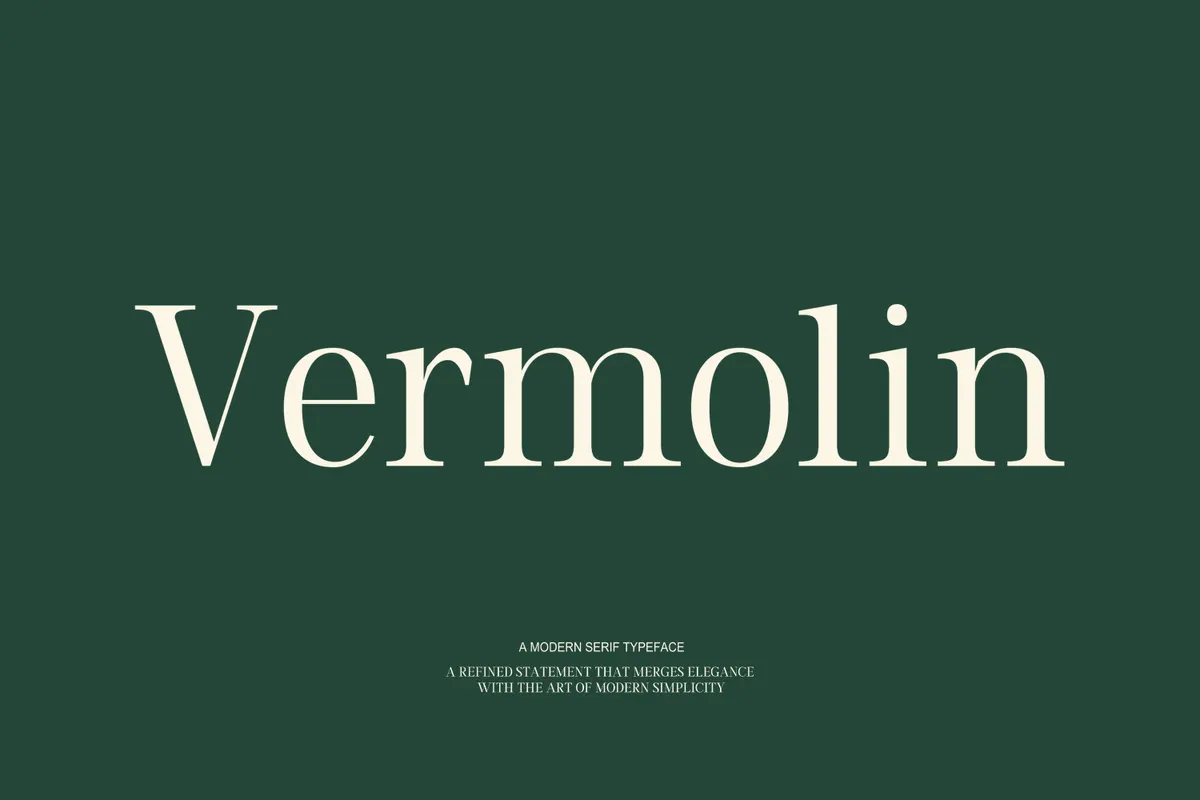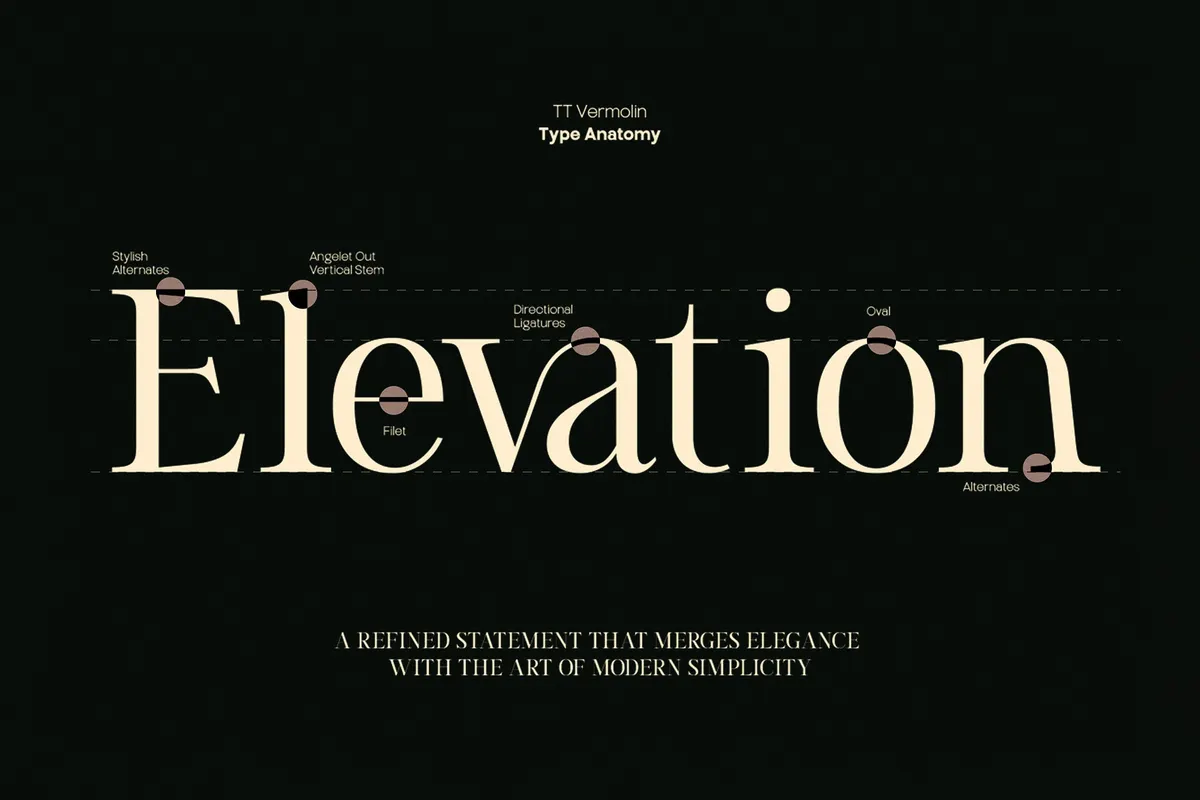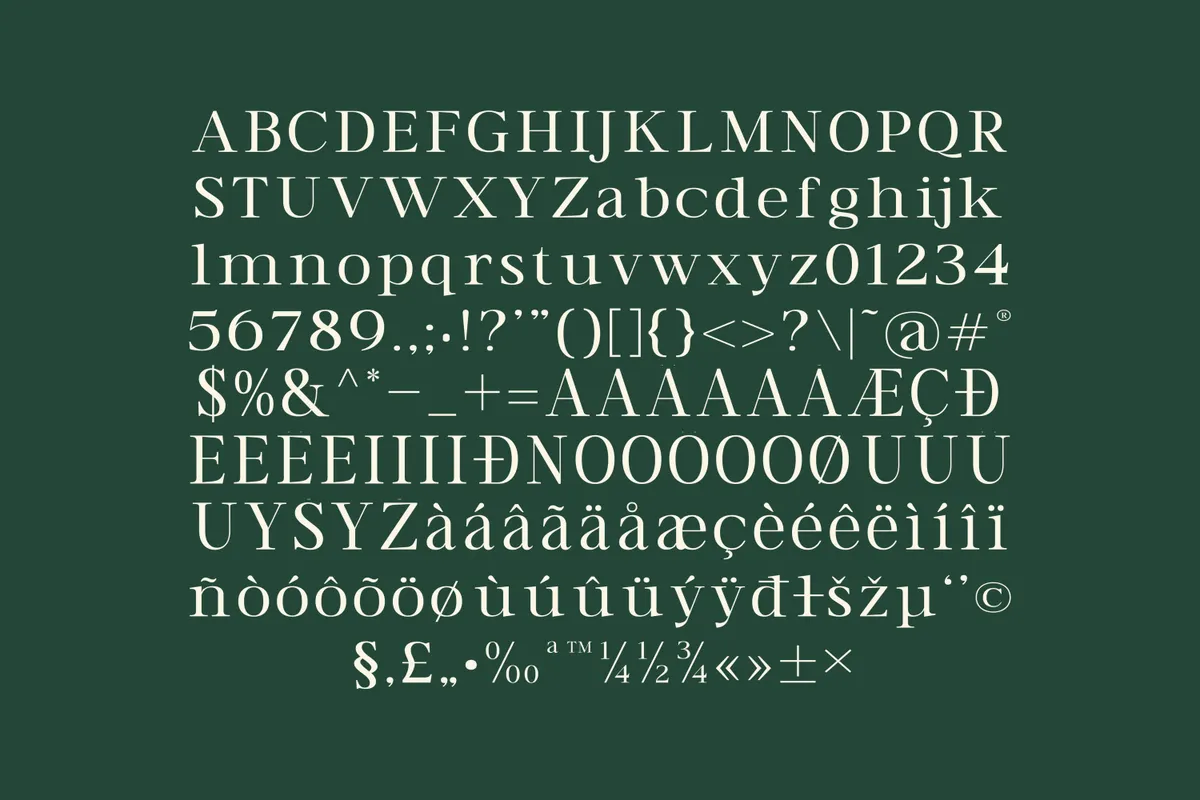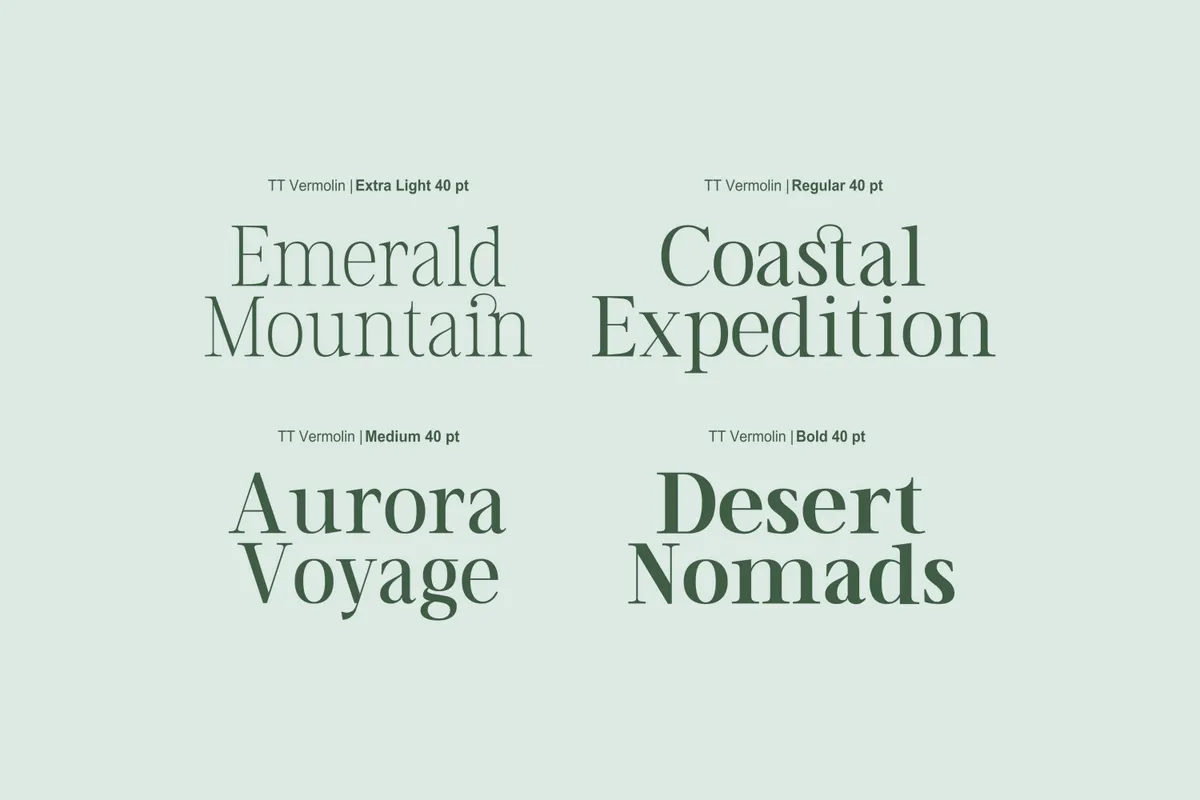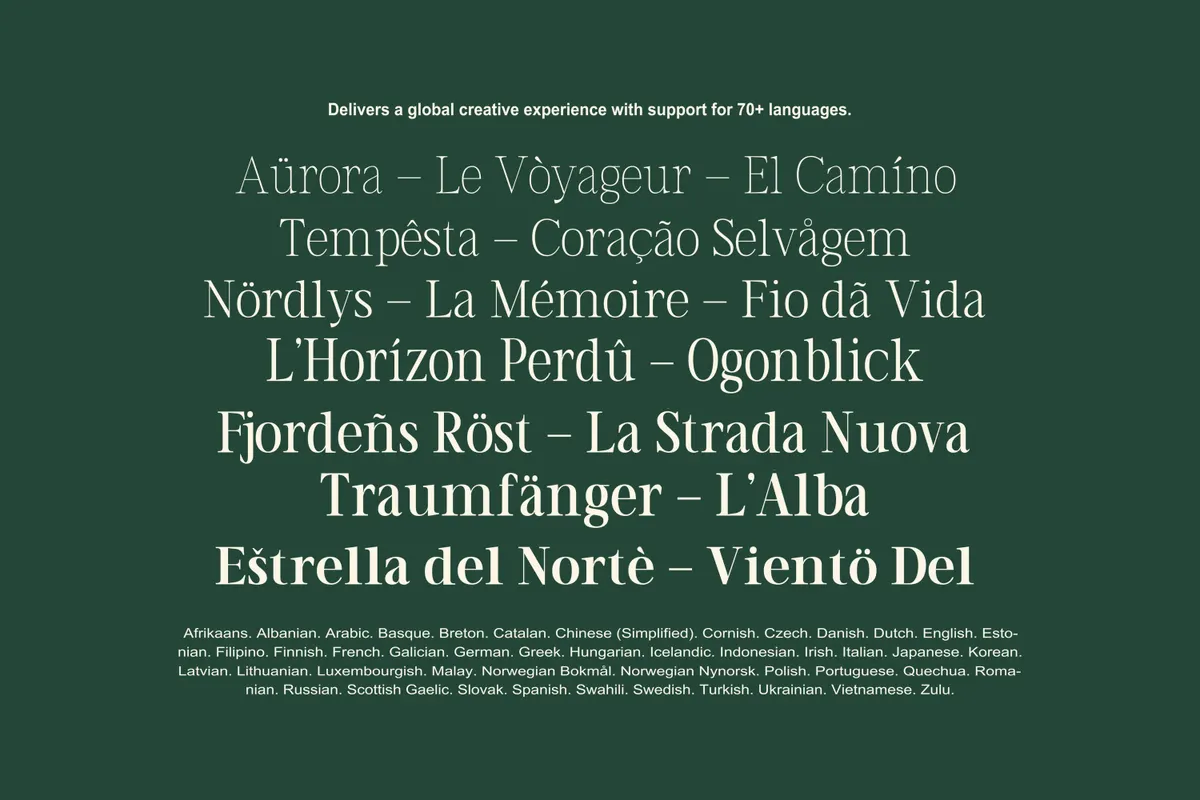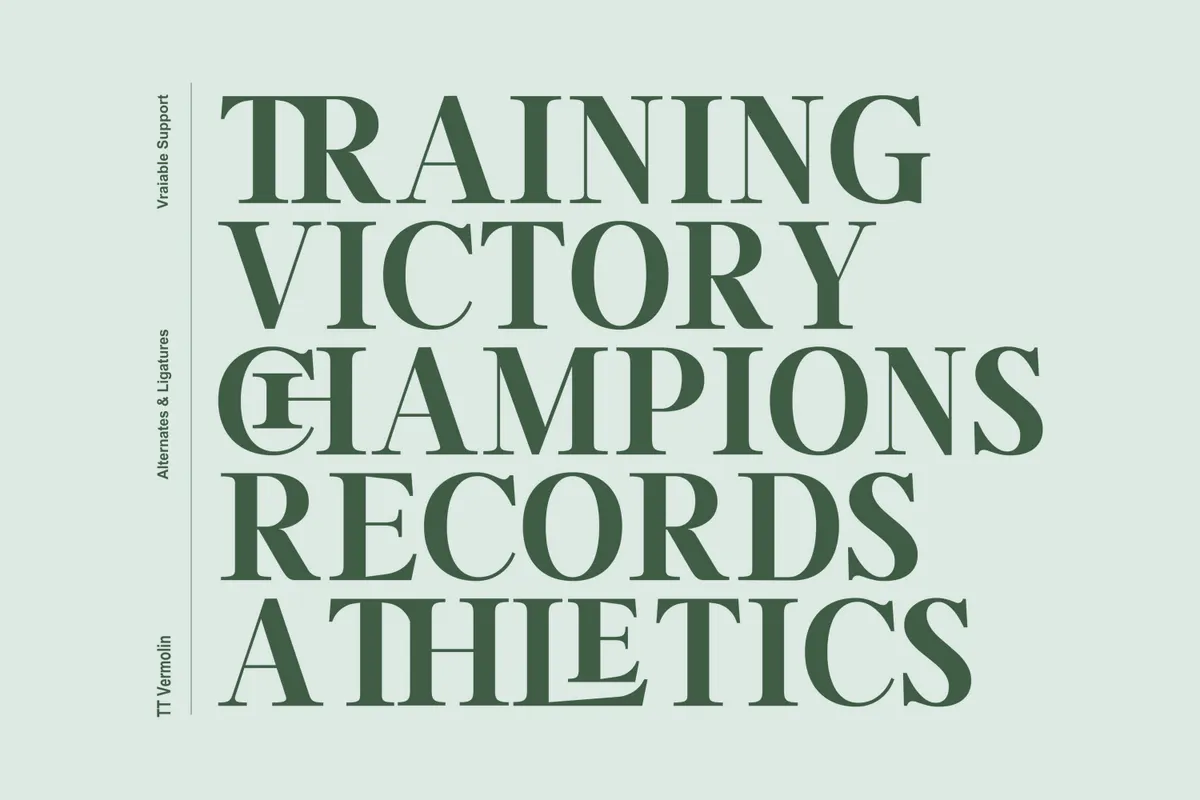
TRT Vermolin - Elegant Serif Font
Vermolin builds sharp, high-contrast serif capitals with a strong vertical stress and sculptural, confident curves, closer to a modern editorial mark than a classic text serif. Seven weights move from a hairline Thin through a solid Bold, and a variable font covers that same range in a single file. Three stylistic alternate sets swap in looser forms across a wide run of capitals and select lowercase letters, all reachable through the OpenType panel.
Use it for luxury branding, editorial headlines, packaging design, advertising campaigns, and web or UI design that wants a sculptural, confident edge.
- Uppercase & lowercase;
- Numerals, punctuation & symbols;
- 7 weights: Thin, ExtraLight, Light, Regular, Medium, SemiBold, Bold;
- Variable font covering the full weight range;
- 40 discretionary ligatures, stylistic alternates on select characters, fractions, superscript figures;